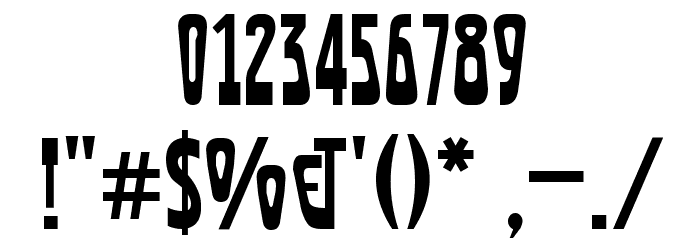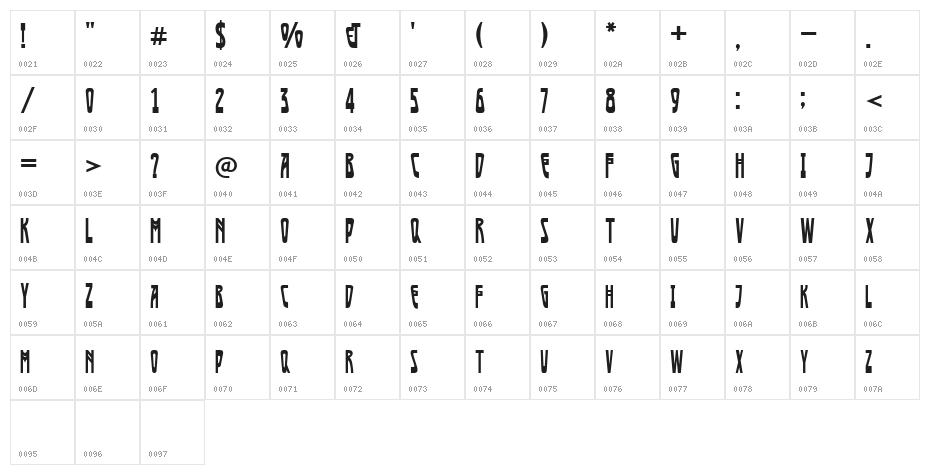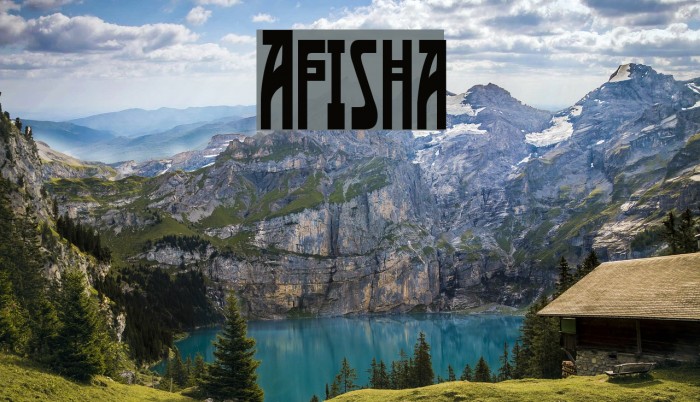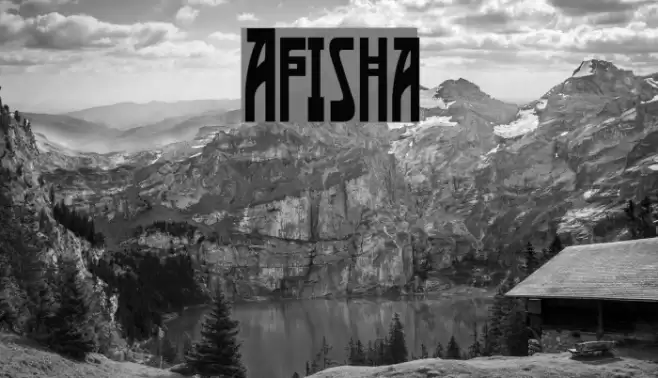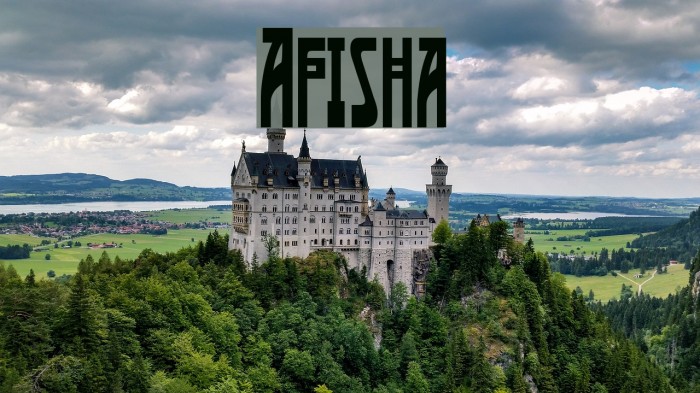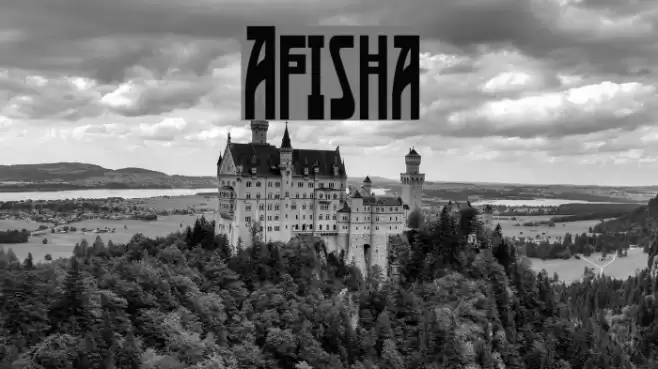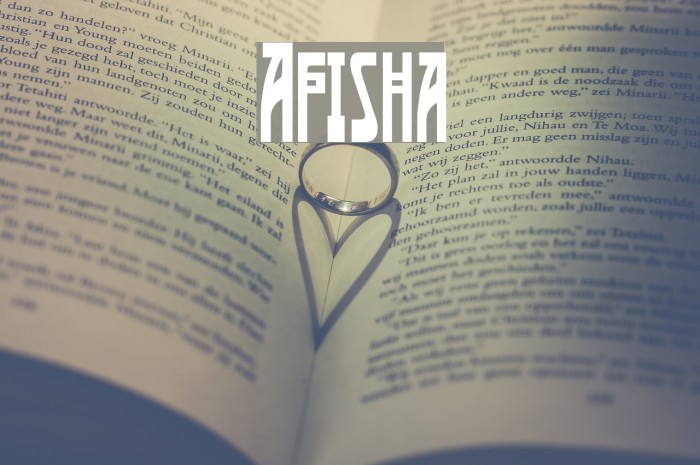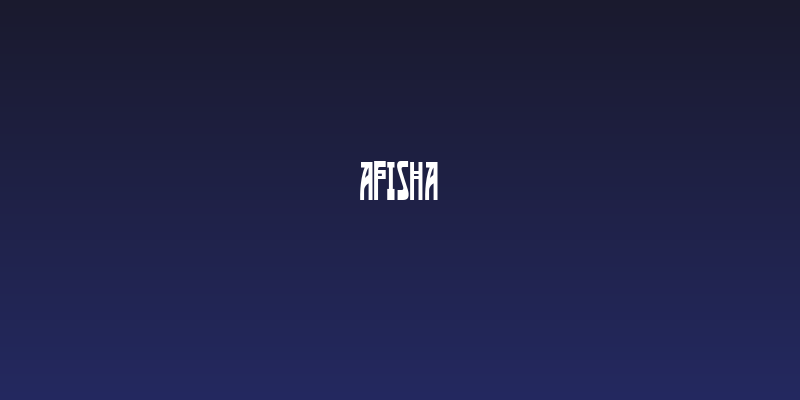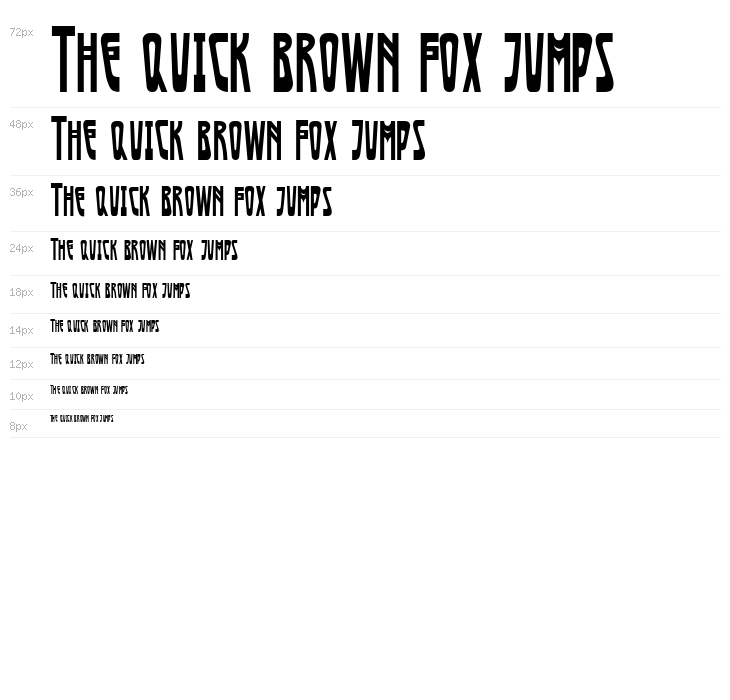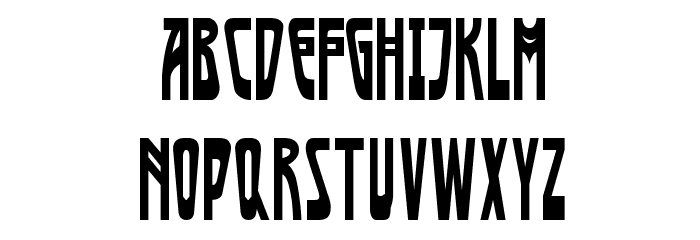
Afisha Font
Afisha Description
This font features a bold and striking design with a unique, angular style. The characters are tall and narrow, giving a condensed appearance that emphasizes verticality. The strokes are thick and consistent, providing a strong visual impact. The uppercase letters have a distinct, almost futuristic look, while the lowercase letters maintain the same boldness and angularity. The numbers and special characters follow the same design principles, ensuring a cohesive appearance across all glyphs. This font is well-suited for projects that require a bold statement or a modern, edgy aesthetic.
| Proposed Projects | Ideal for posters, headlines, branding, and any project needing a bold, modern look. |